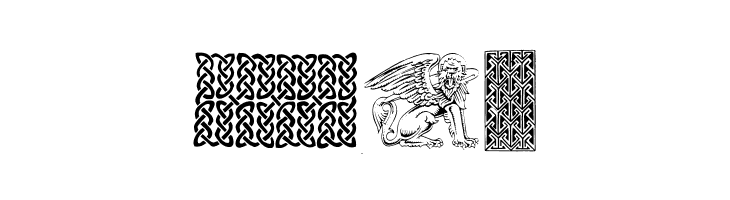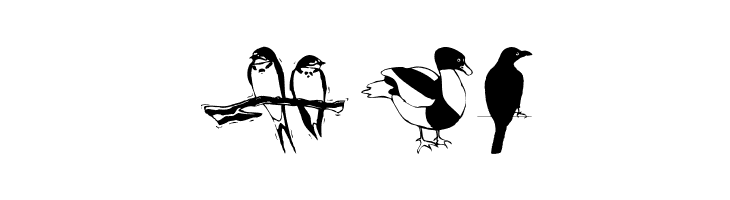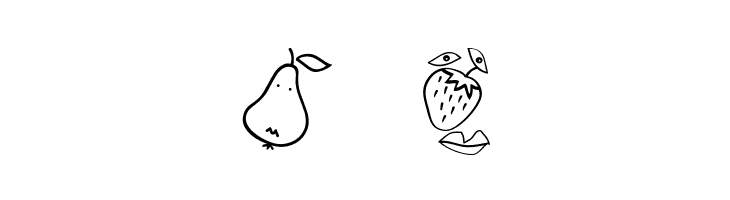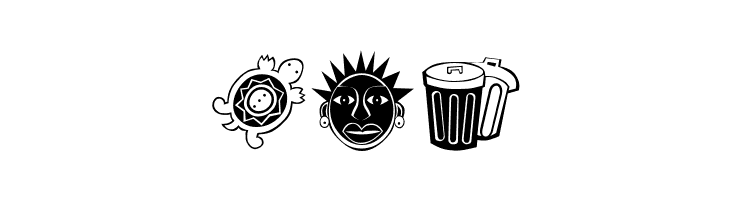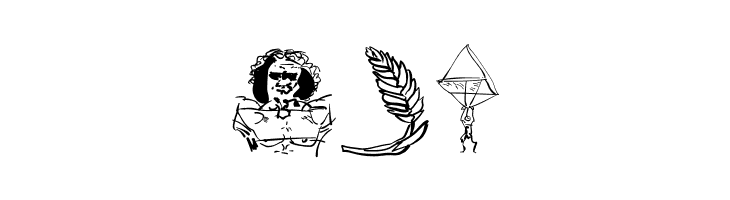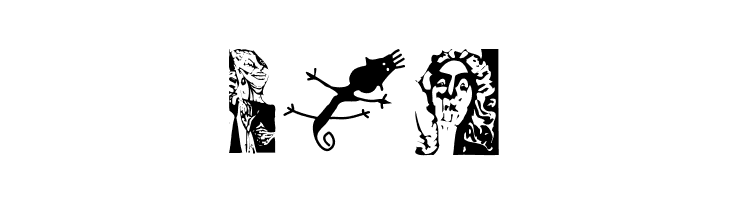
Ornate dingbat font with illustrations of traditional arts and crafts.
A whimsical dingbat font with abstract faces and artistic illustrations.
Bird-themed decorative font with each character depicted as a unique bird illustration.
A playful series of fruit and vegetable characters with abstract facial features.
A quirky pictogram font with cartoonish, illustrative icons.
A collection of da Vinci-inspired illustrative symbols and sketches.
A decorative font with shopping-themed illustrations for each character.
Energetic pictogram font with action-themed icons.
An illustrative, image-based decorative font with unique scenes for each character.